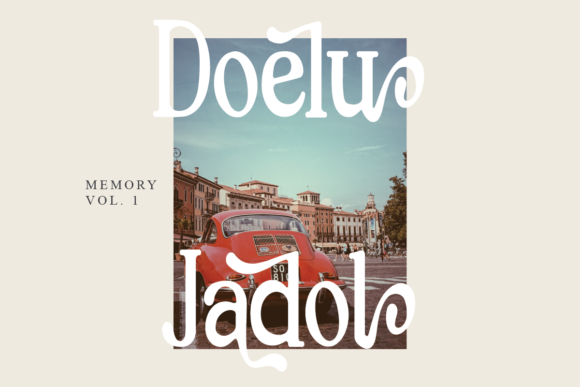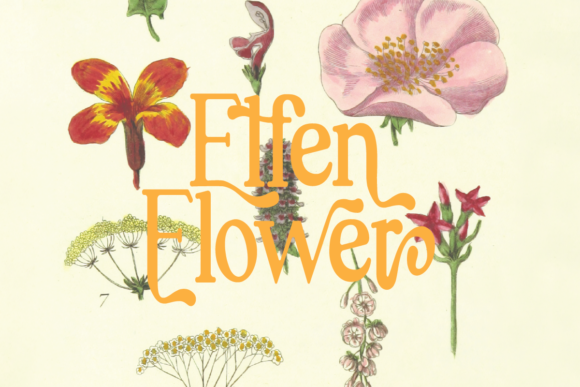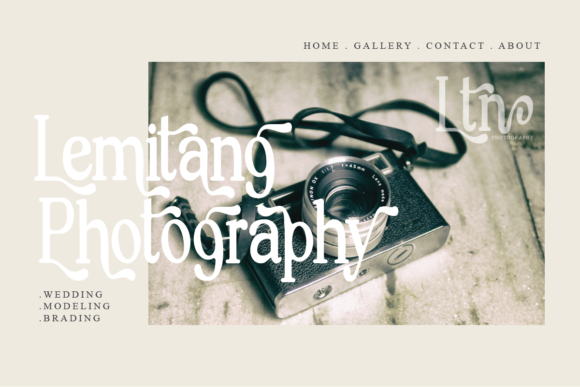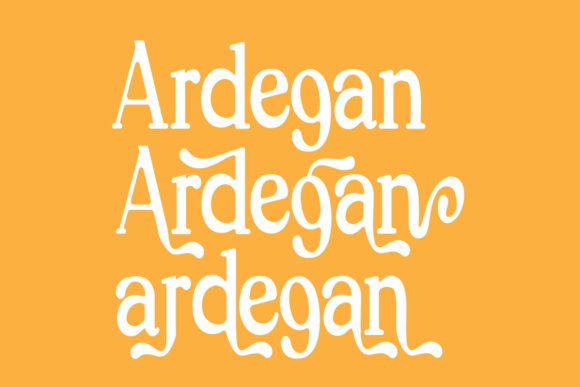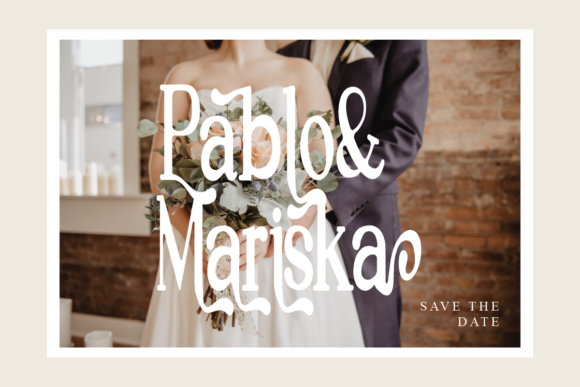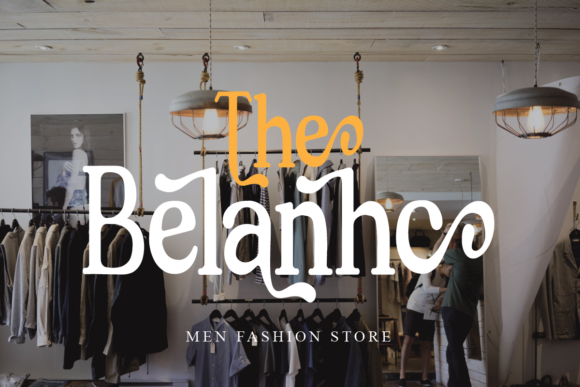
Introducing Ardegan Font: Elevate Your Designs with Vintage Chic
Are you on the hunt for a font that exudes elegance, sophistication, and a touch of vintage flair? Look no further than Ardegan Font, a stunning display font that’s sure to capture your heart. With its unique blend of classic charm and modern versatility, Ardegan is the perfect addition to any designer’s toolkit.
What is Ardegan Font?
Ardegan Font is a beautifully crafted, vintage-styled display font that’s perfect for creating eye-catching designs. Its intricate details, flowing lines, and exquisite swashes make it an ideal choice for a wide range of projects, from branding and advertising to packaging and editorial design.
Key Features of Ardegan Font
- Vintage Style: Ardegan Font boasts a unique, vintage-inspired aesthetic that’s reminiscent of classic typography from a bygone era.
- Highly Versatile: Whether you’re designing a logo, brochure, or social media graphic, Ardegan Font adapts effortlessly to any style or theme.
- Extensive Character Set: With a wide range of characters, including swashes, ligatures, and alternates, Ardegan Font offers endless possibilities for creative expression.
Why Choose Ardegan Font?
So, what sets Ardegan Font apart from other display fonts on the market? Here are just a few reasons why designers and crafters are falling in love with this incredible font:
- Unique Style: Ardegan Font’s distinctive vintage style ensures that your designs will stand out from the crowd and leave a lasting impression.
- Time-Saving: With Ardegan Font, you can create stunning designs in a fraction of the time it would take with other fonts. Its versatility and extensive character set mean you can experiment with different styles and ideas without starting from scratch.
Ardegan Font is a dream come true for designers and crafters looking to elevate their work. Whether you’re a seasoned professional or just starting out, this font offers the perfect combination of style, versatility, and ease of use.
From:
- Logos and Branding: Create a lasting impression with a custom logo that showcases your brand’s unique personality.
- Advertising and Marketing: Grab attention and drive engagement with eye-catching ads and promotional materials.
- Packaging and Product Design: Stand out on store shelves with beautifully designed packaging that reflects your brand’s values and aesthetic.
- Editorial and Publishing: Add a touch of elegance to your editorial designs, from magazine covers to book titles and more.
Get Ready to Fall in Love with Ardegan Font